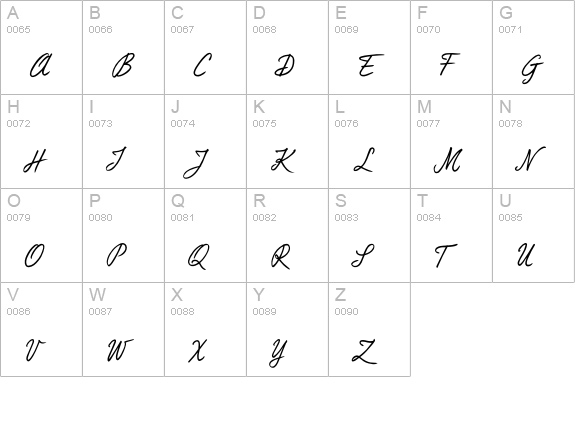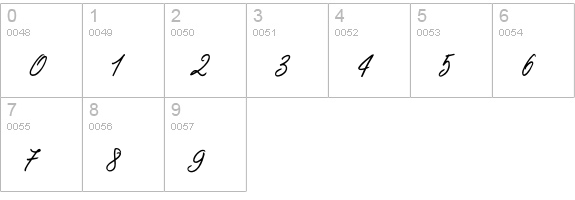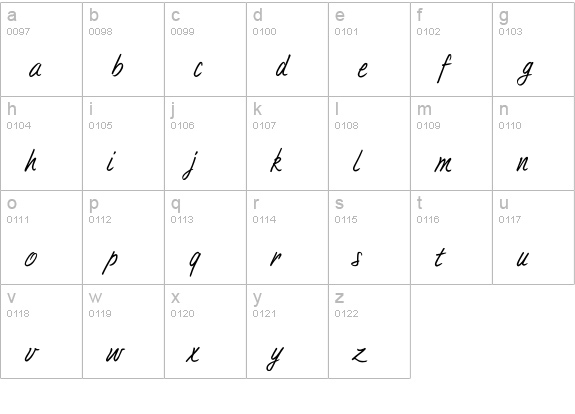
DuTurner Font Details
Introducing DuTurner font - a modern and versatile typeface perfect for a wide range of design projects. With its sleek lines and elegant curves, DuTurner adds a touch of sophistication to any text or headline. This stylish font is ideal for branding, packaging, invitations, and more. The best part about DuTurner font? It's completely free! That's right, you can download this stunning font at FontsMarket.com without any cost. Whether you're a designer looking to add a fresh look to your projects or a business owner in need of a new font for your branding, DuTurner is the perfect choice. Don't miss out on the opportunity to enhance your designs with the beauty and elegance of DuTurner font. Download it for free today at FontsMarket.com and elevate your creative projects to the next level.